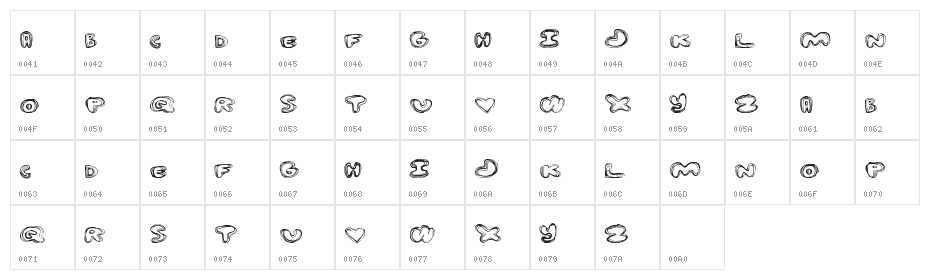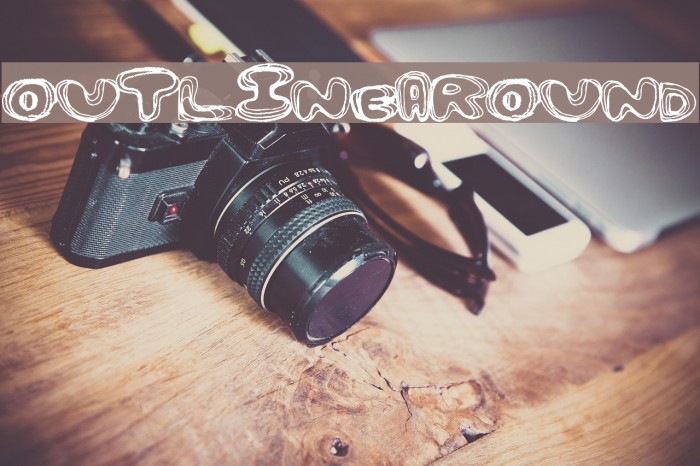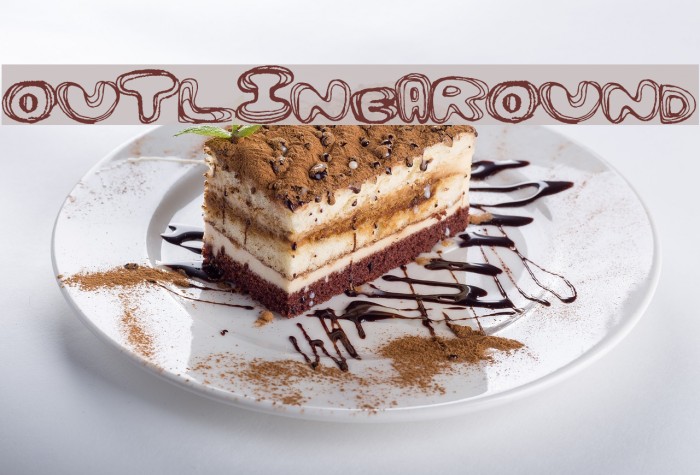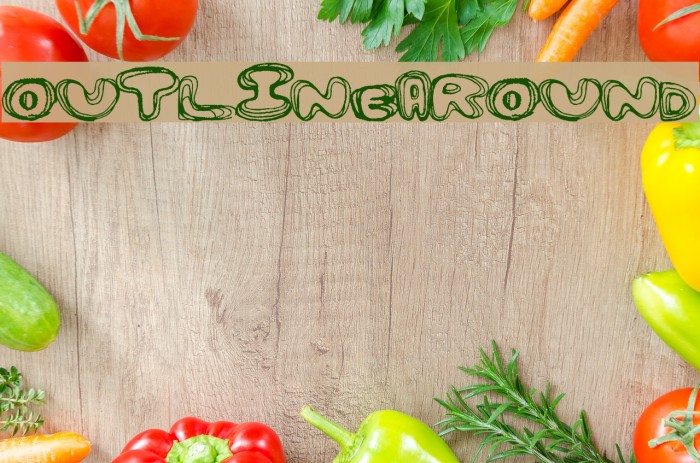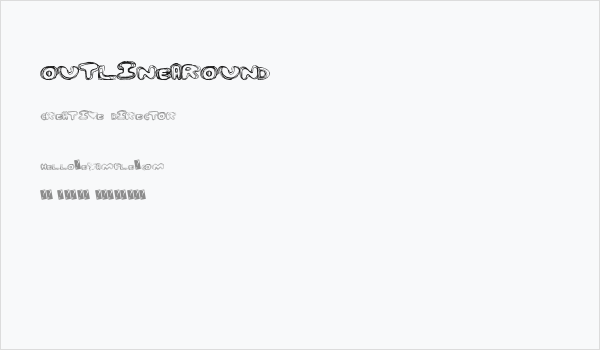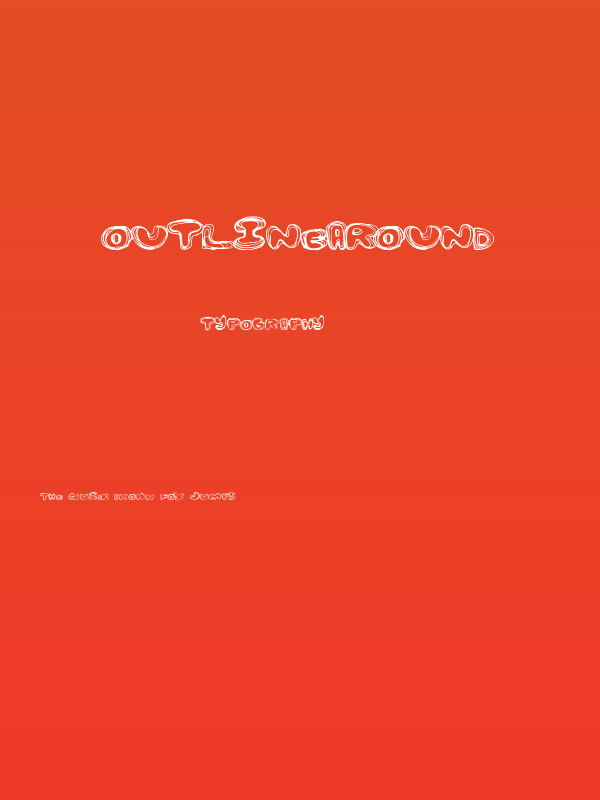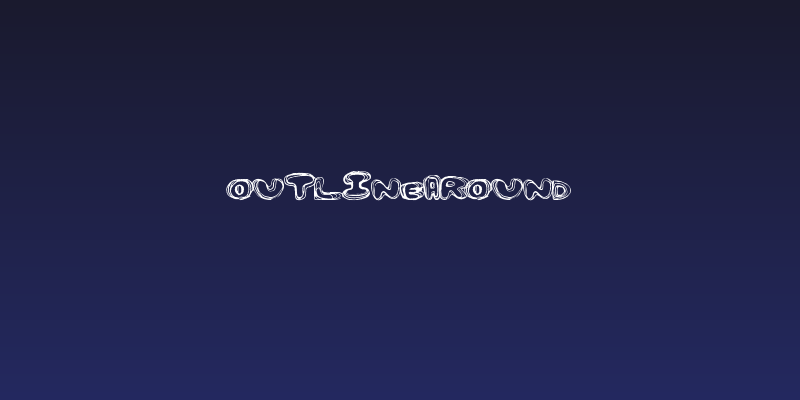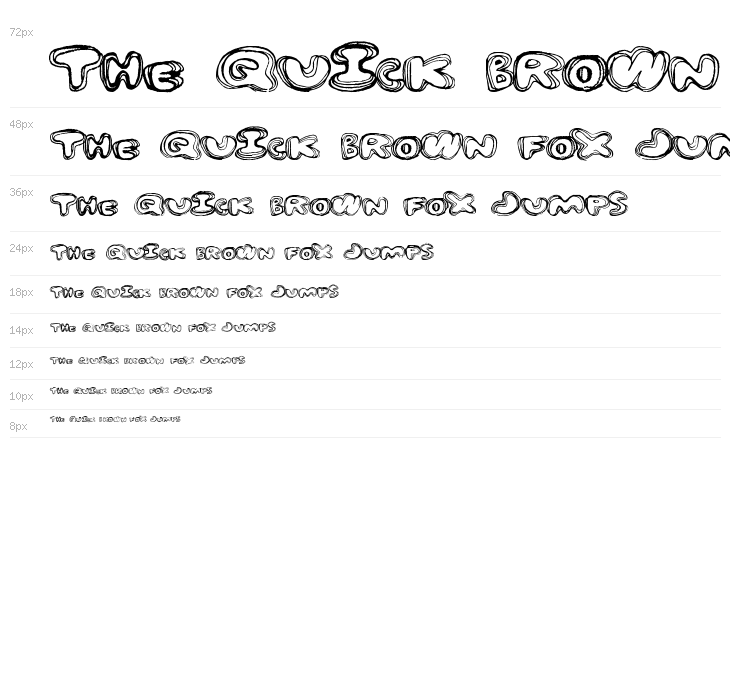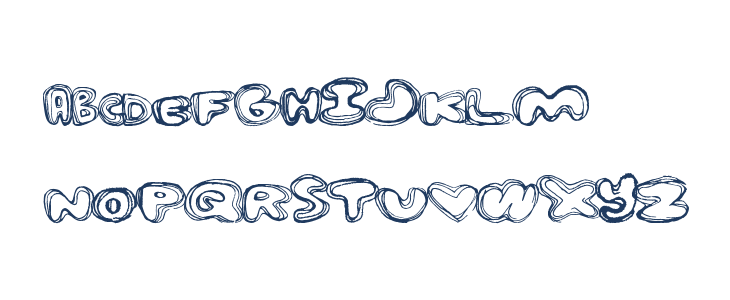
OutlineAround Font
OutlineAround Description
This font features a playful and bold design with a distinct outline around each character, creating a dynamic and eye-catching appearance. The letters are rounded and have a hand-drawn feel, adding a whimsical touch to the overall style. The uppercase and lowercase letters maintain a consistent style, with the uppercase being slightly larger and more pronounced. The numbers and special characters follow the same design principles, ensuring uniformity across all characters. The font's unique outline effect gives it a three-dimensional look, making it stand out in any design project.
| Proposed Projects | Ideal for children's book covers, playful posters, creative branding, and eye-catching headlines. |